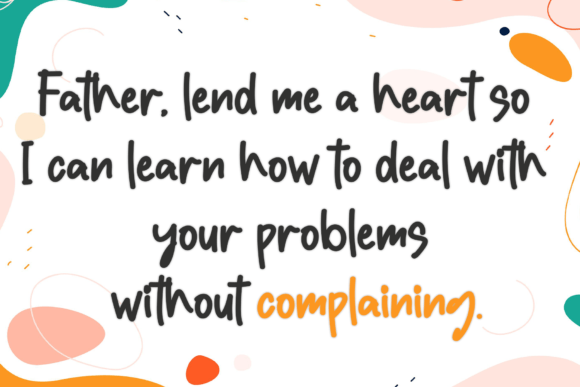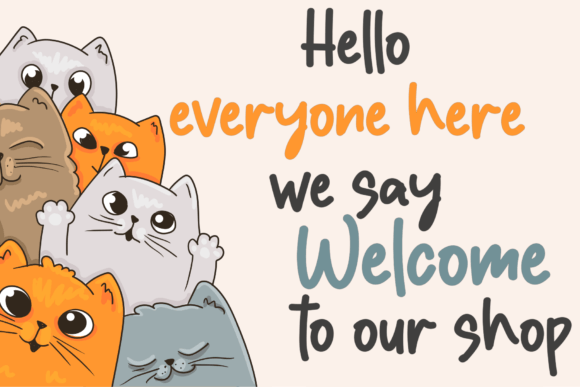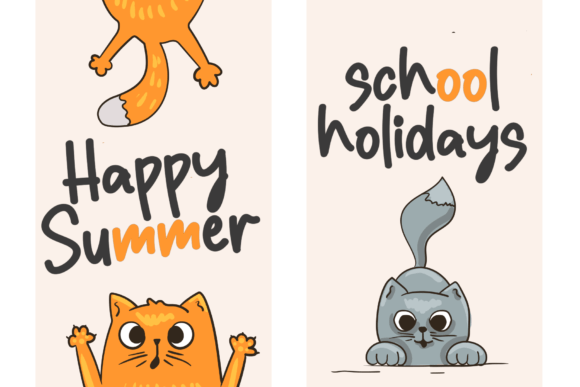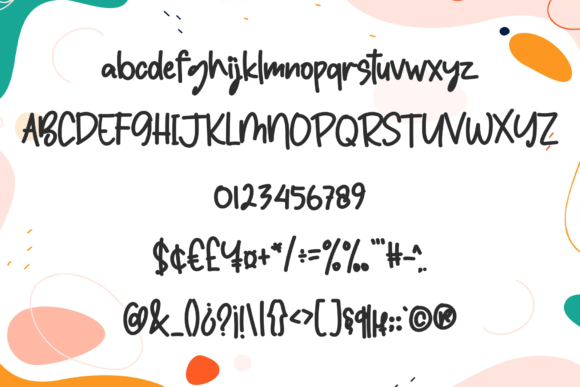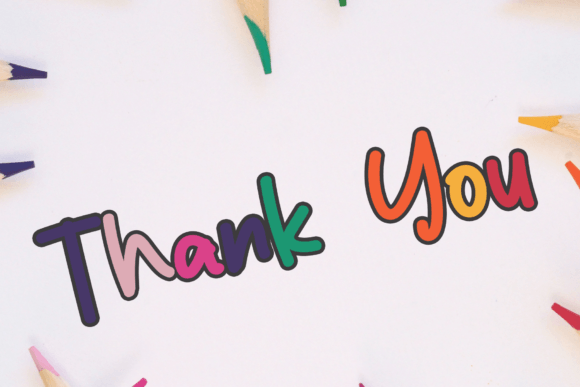
Introduction to Small Beach Font
Have you ever found yourself stuck in a design rut, searching for the perfect font to elevate your creative project? I know I have. Remember that one time when you were making a beautiful beach-themed birthday card, and the font just didn’t quite match the vibe? That’s when I stumbled upon the Small Beach Font, and my design world was forever changed.
With its cool and colorful display style, the Small Beach Font is a game-changer for any design project. Whether you’re a seasoned designer or just starting out, this high-quality font is sure to become your go-to resource for all your creative needs. And the best part? It’s available for free download, making it an accessible design resource for everyone.
From crafting to digital design, presentations to greeting cards, the Small Beach Font is a versatile and valuable addition to any designer’s toolkit. In this article, we’ll dive deeper into what makes this font so special and explore its many uses, so you can unlock its full potential and take your designs to the next level.
Key Features of Small Beach Font
- Transparent background: This font features a transparent background, allowing for seamless integration with any design or image.
- High quality: Small Beach Font is designed to provide a high-quality aesthetic, making it perfect for creative projects.
- Perfect for creative projects: Small Beach Font is ideal for use in creative projects, such as logo design, branding, and graphic design, where a unique and eye-catching font is required.
- Unique characteristics: This font features a unique, hand-drawn design with subtle texture and imperfections, giving it a distinctive and creative look.
Honest Review: Small Beach Font
As a designer, I’m always on the lookout for high-quality design resources to elevate my creative projects. Recently, I came across the Small Beach Font, and I must say it’s a great find.
What works well: ✨ The font is incredibly versatile and suitable for a wide range of creative projects, from beach-themed websites to travel brochures. The font’s high-quality design makes it perfect for printing and digital use. I also appreciate that it’s a free download, which is always a bonus.
- Transparent background option: This feature allows for easy use on any background, making it a valuable asset for designers.
- High-quality design: The font’s crisp and clear design ensures that it will always look great, even at large sizes.
However, there are some limitations: ⚠️ The font only comes in a limited number of weights, which may not be suitable for all design projects. Additionally, the font may not be as unique or distinctive as some other fonts on the market.
Overall, I’m impressed with the Small Beach Font and would definitely recommend it to other designers looking for a high-quality, free design resource.
Small Beach Font is a high-quality, free design resource ideal for creative projects that require a unique and elegant touch. Its transparent background makes it easy to layer and customize, adding versatility to your design.
– Add a touch of elegance to your presentations and documents with Small Beach Font.
To maximize the potential of Small Beach Font, experiment with different font sizes, colors, and layering techniques. Combine it with other design elements to create a unique and visually appealing design.
Common Use Cases for Small Beach Font
Small Beach Font is suitable for various design projects, including:
- Travel and tourism marketing materials
- Food and beverage branding